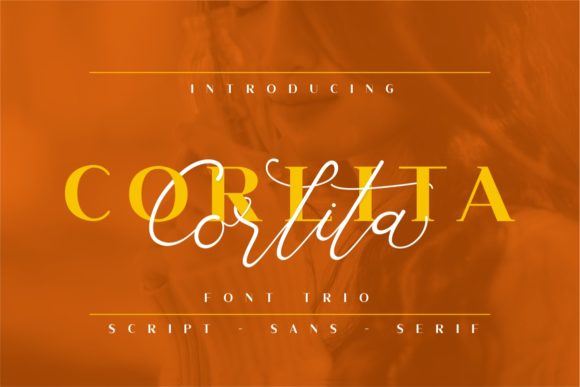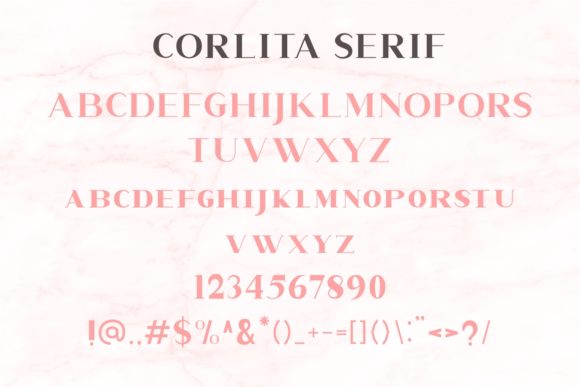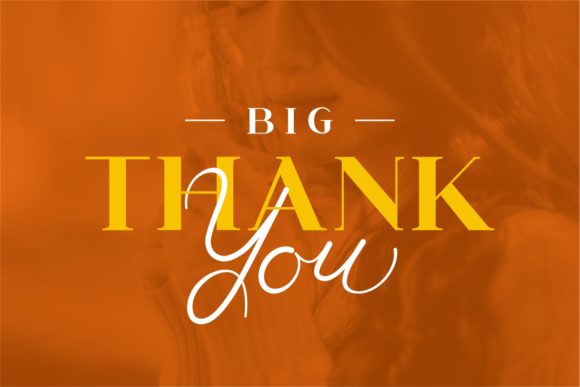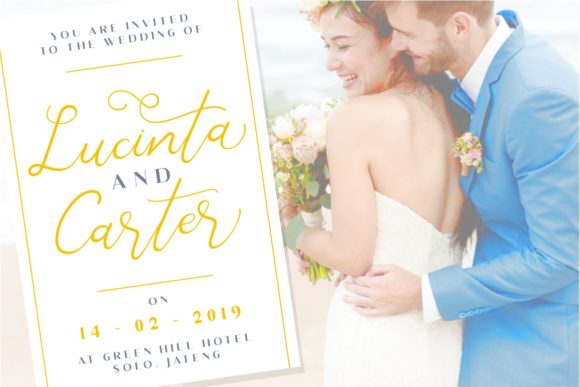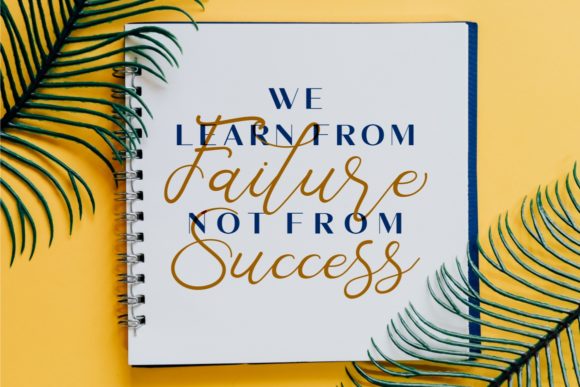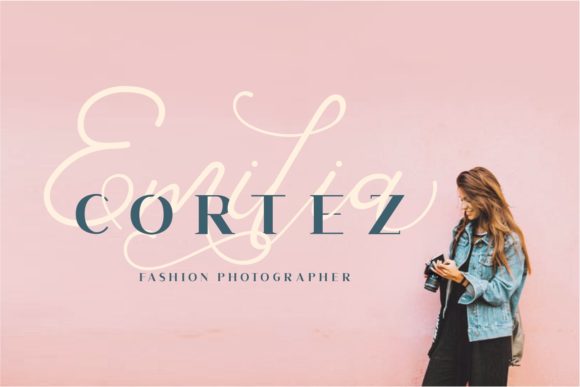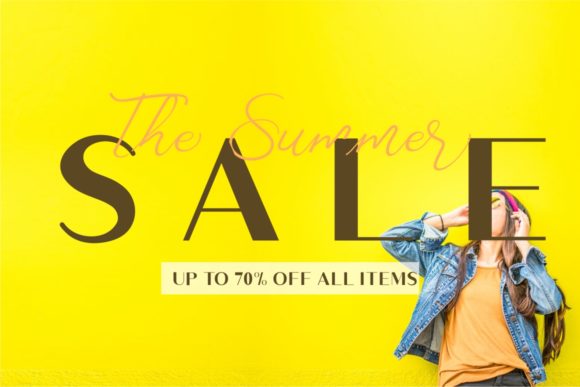
Corlita Trio Font
About Corlita Trio Font
The Corlita is a beautiful and modern font trio. It includes a sans,serif and script version which can be paired together perfectly.
It’s perfect for branding, wedding invites and cards, elegant logos, posters, packaging, stationery, websites, and much more!